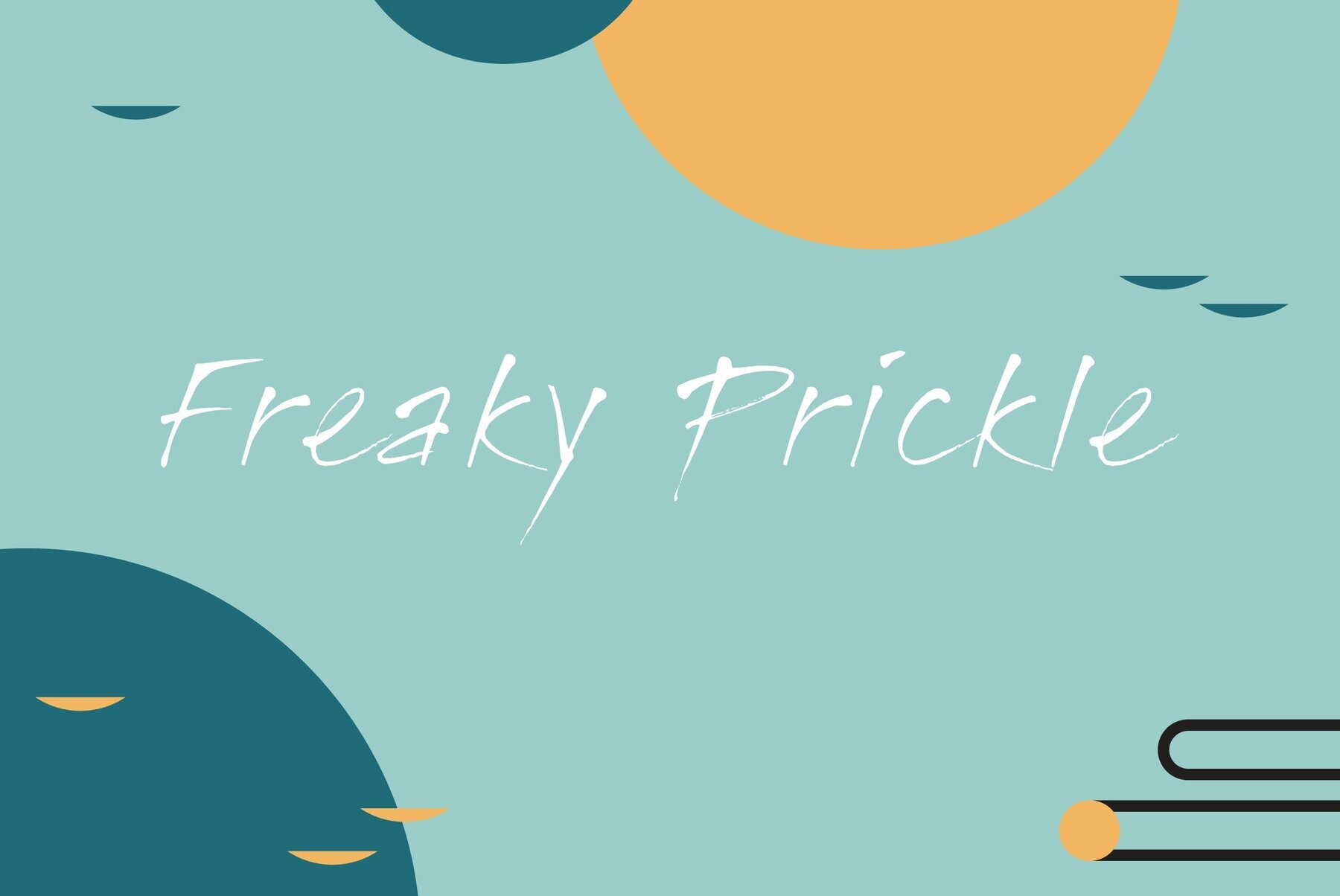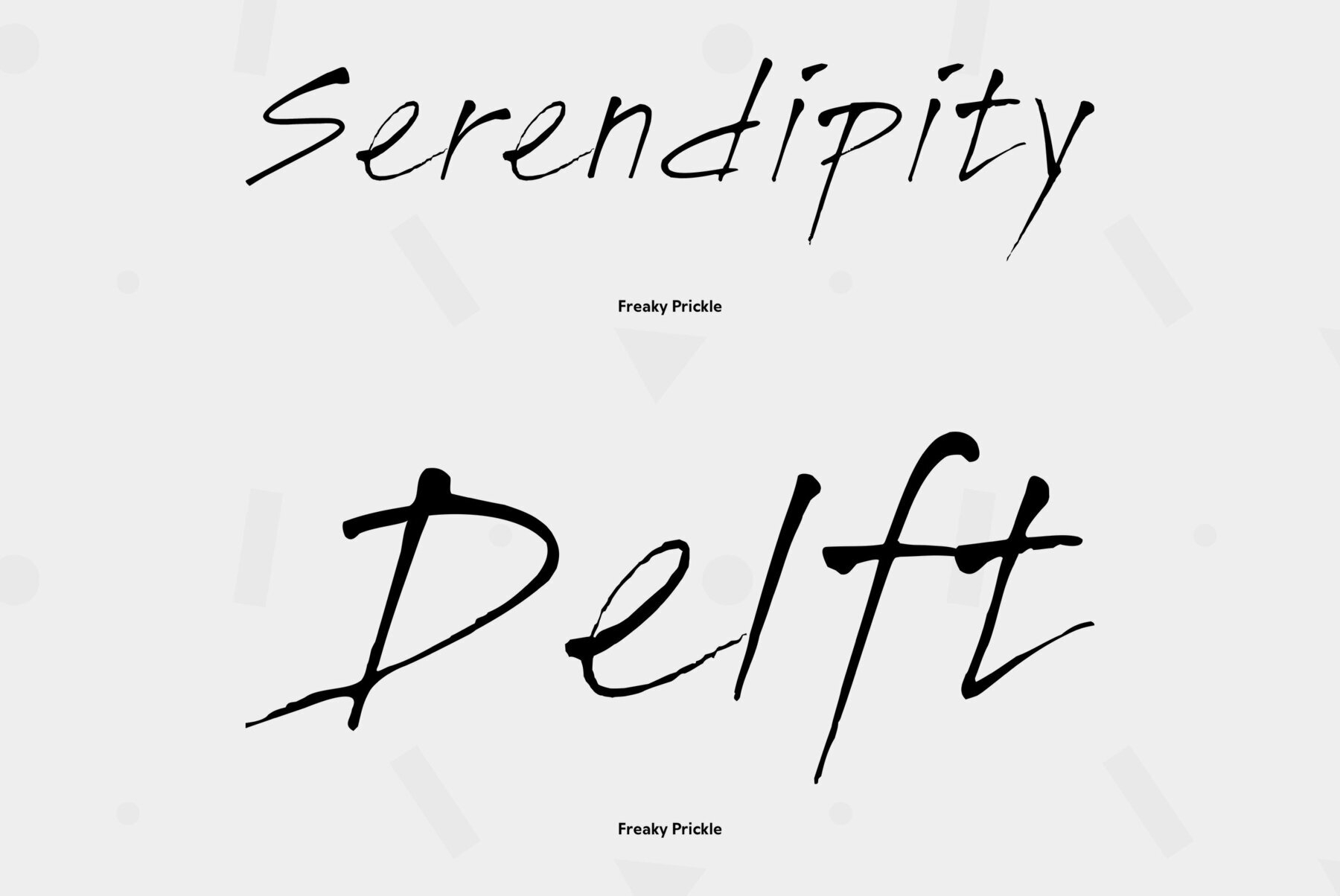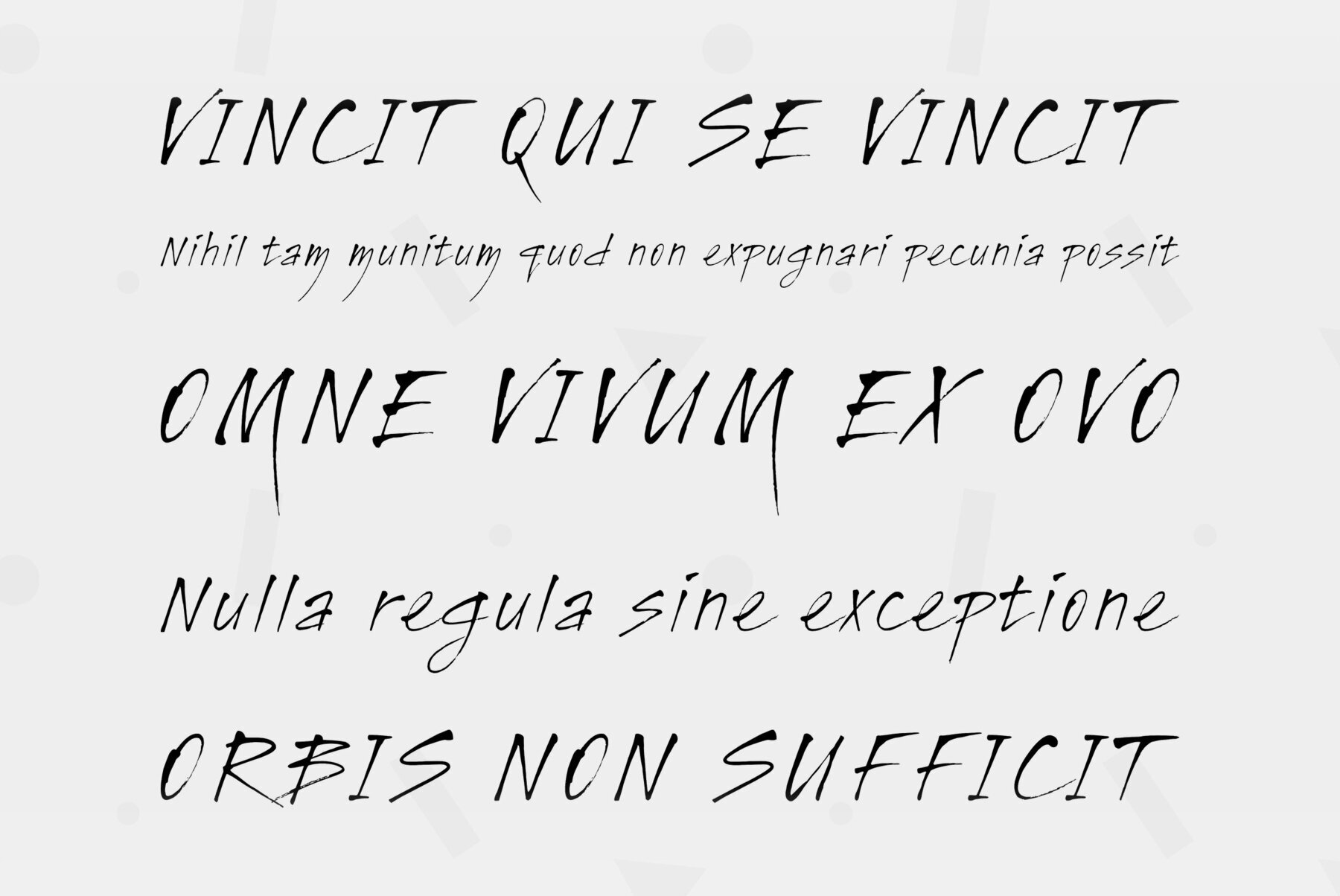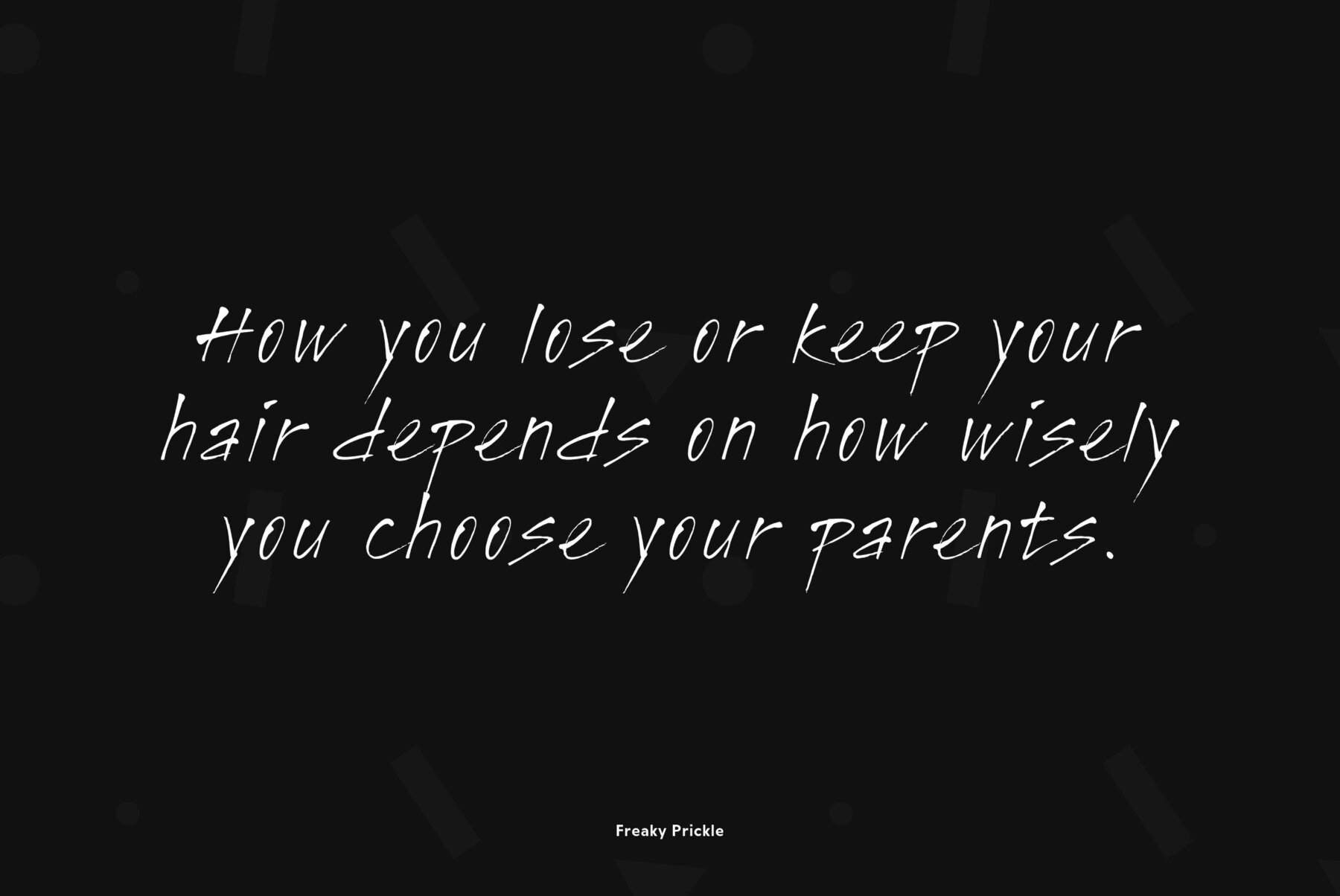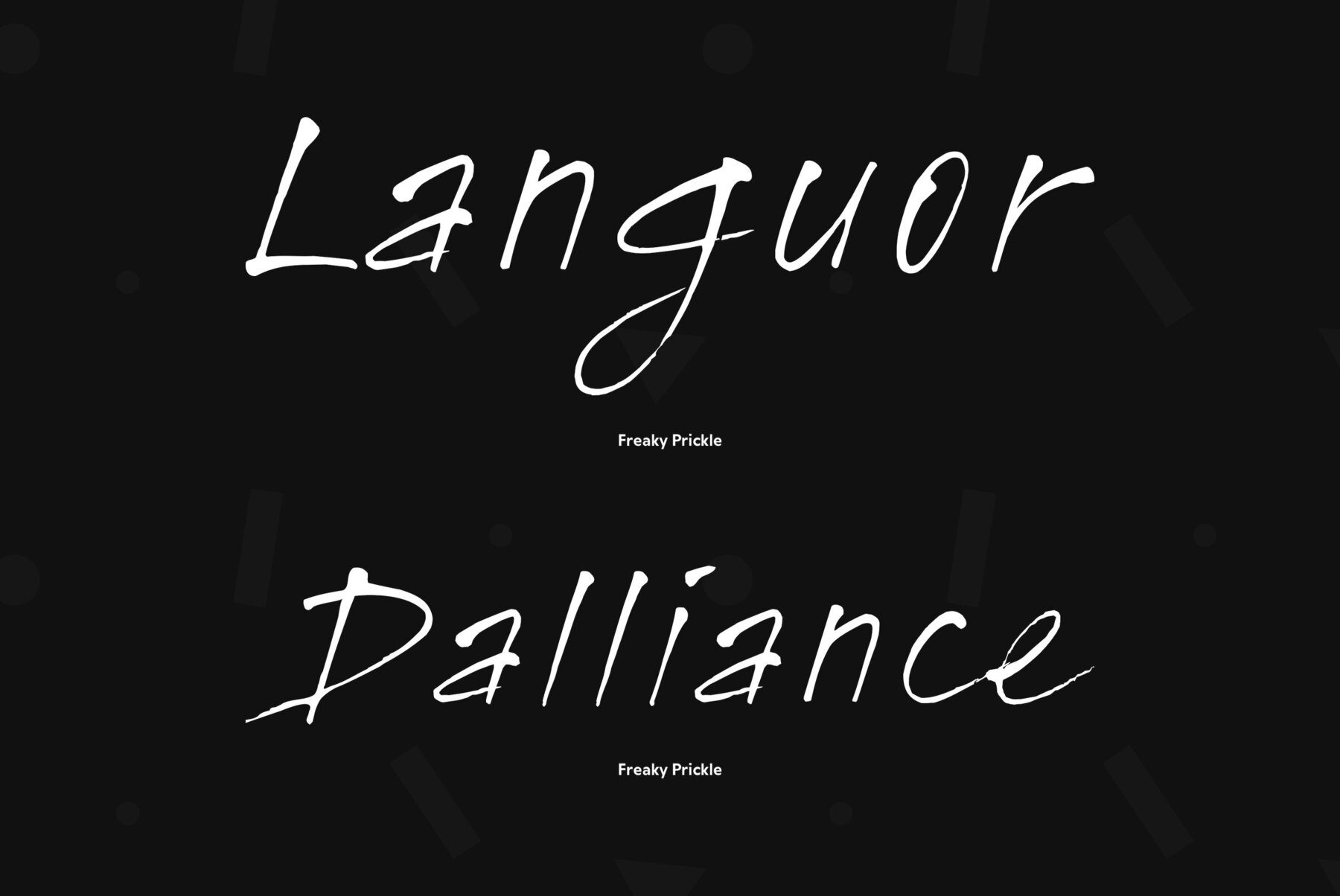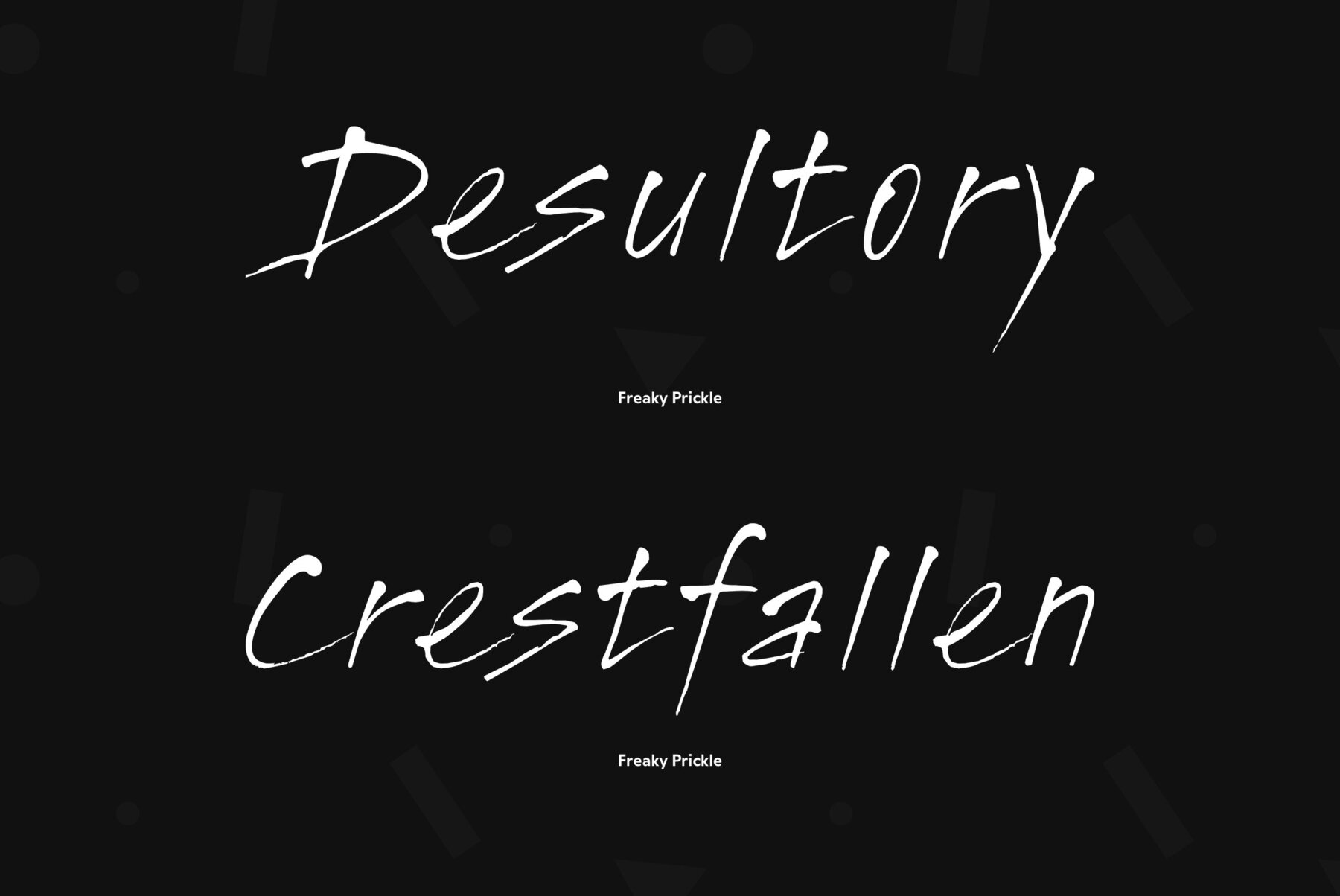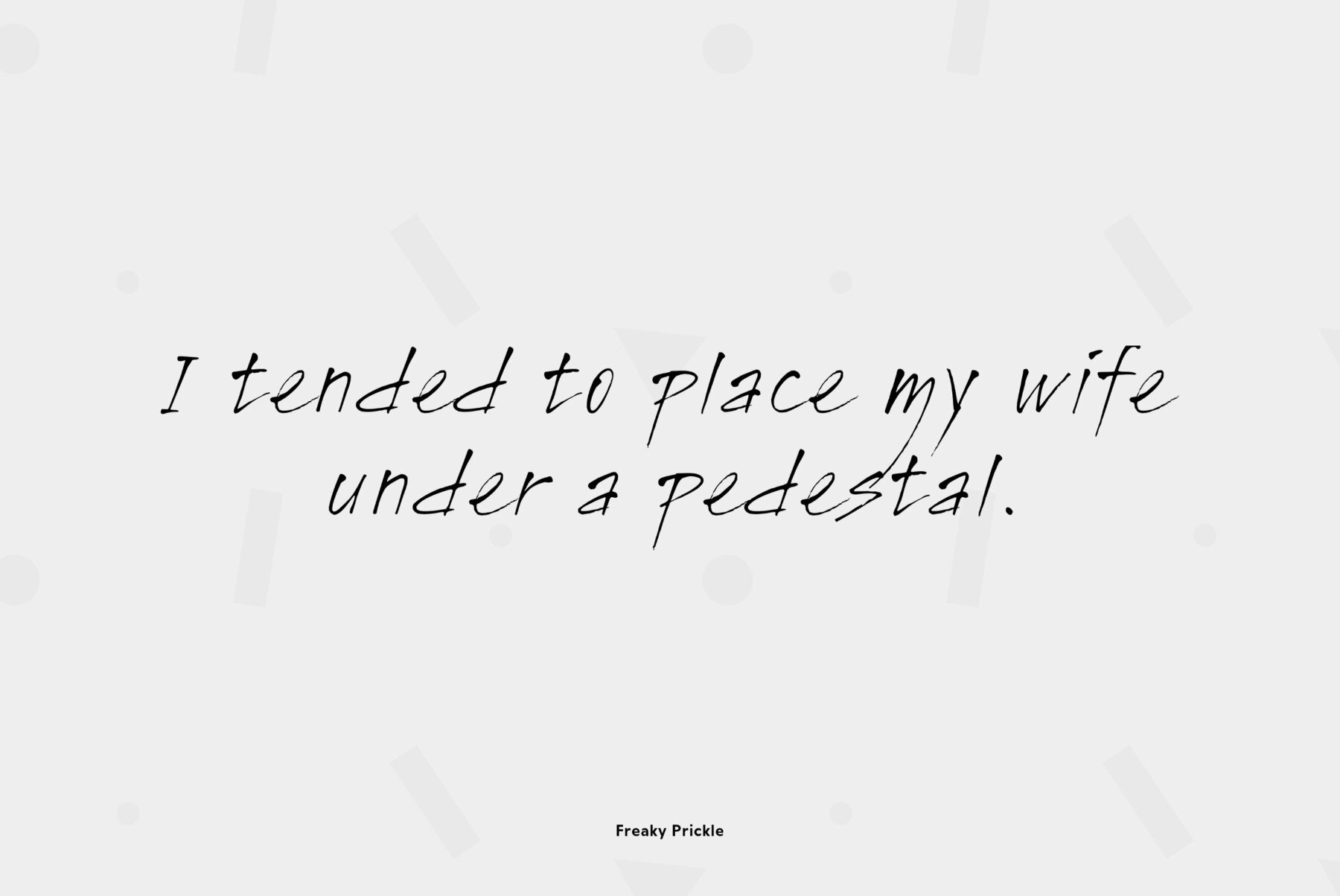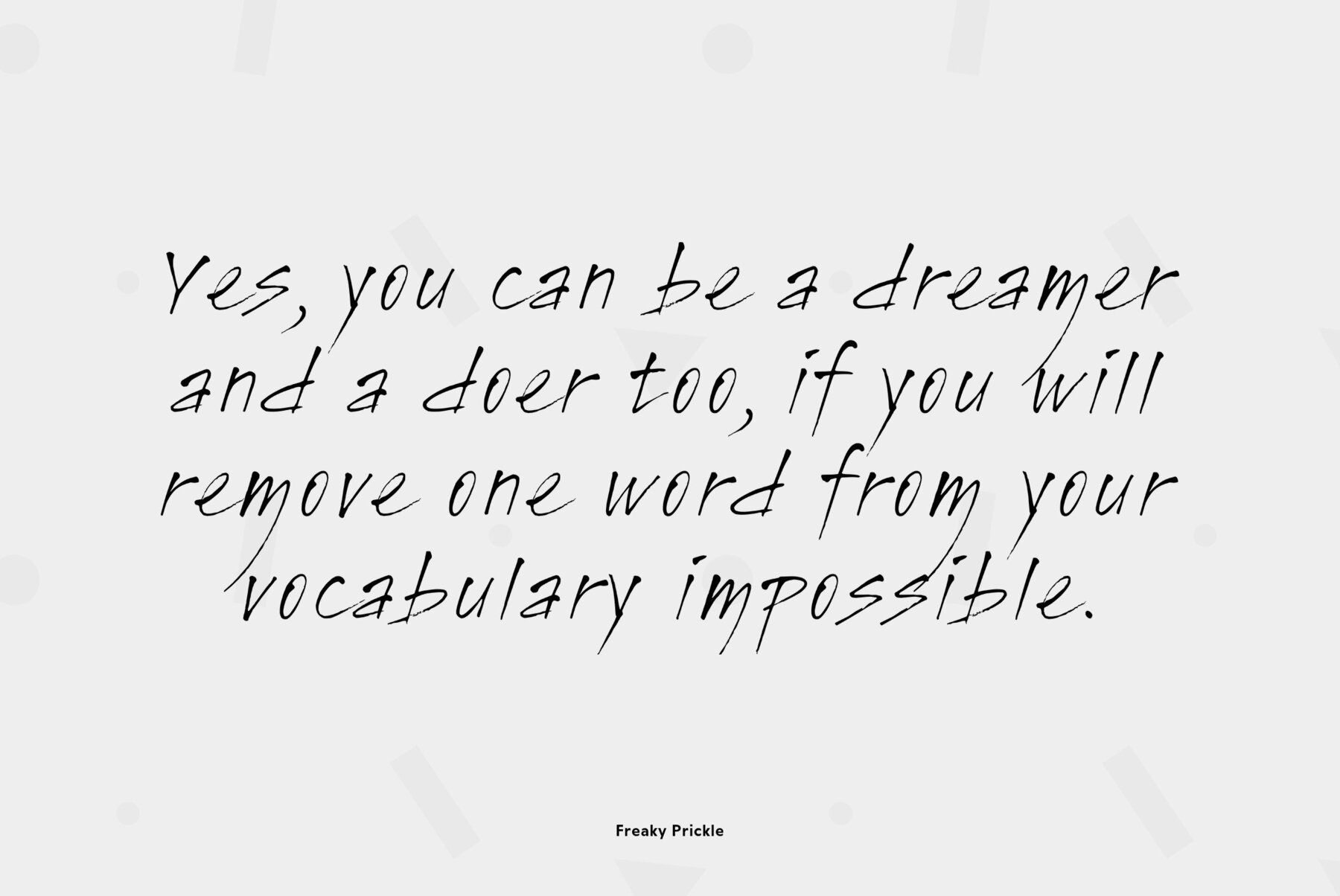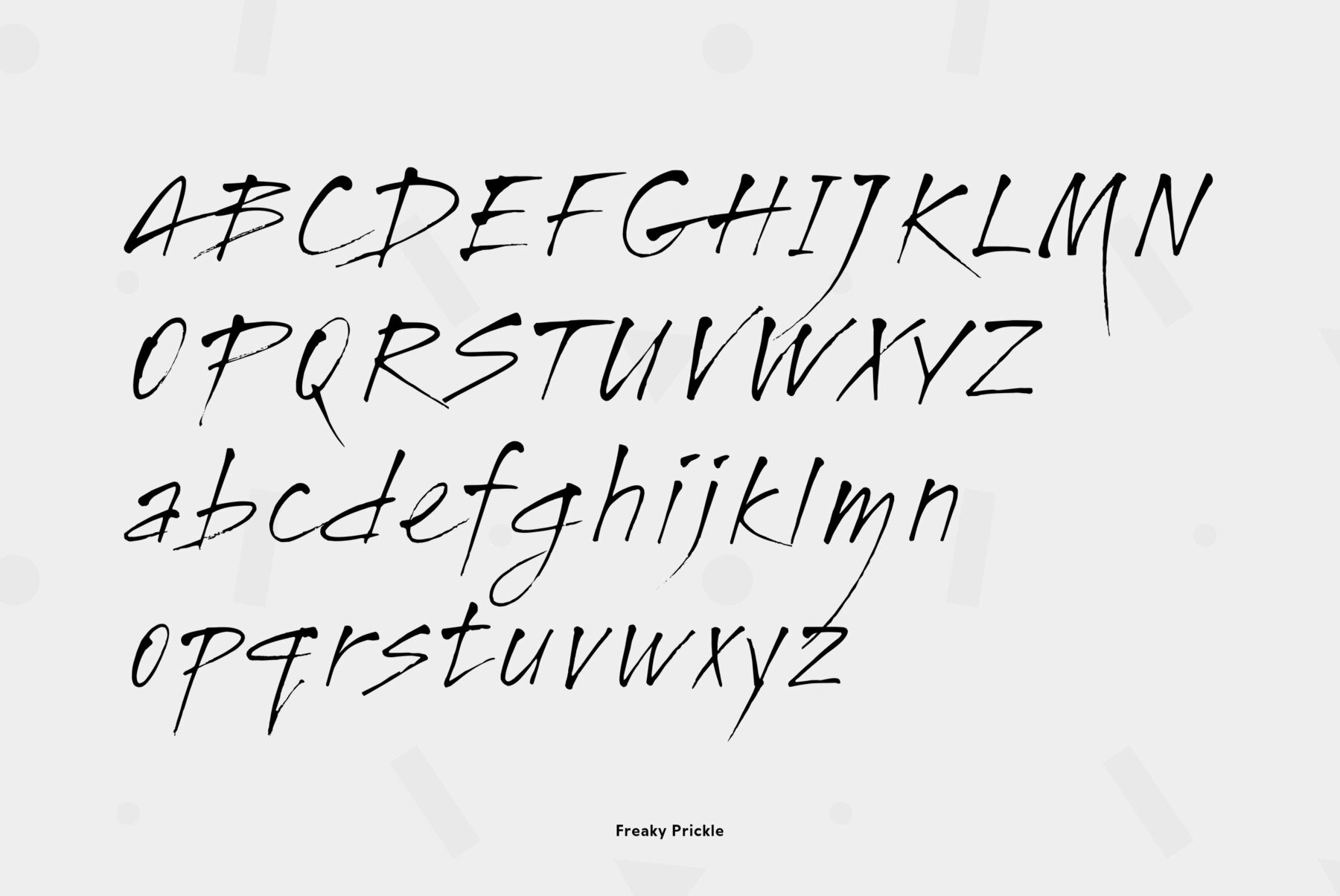
Freaky Prickle
Freaky Prickle script was written using ink and various wooden sticks and digitized/ Autor’s target was to create the spontaneous, light, flying script with dynamics and energy at the same time. Upright and cursive styles are available. The type was planned for use as headline in fiction and display matter. Font was designed by Marina Bakhireva and released by ParaType in 2009.